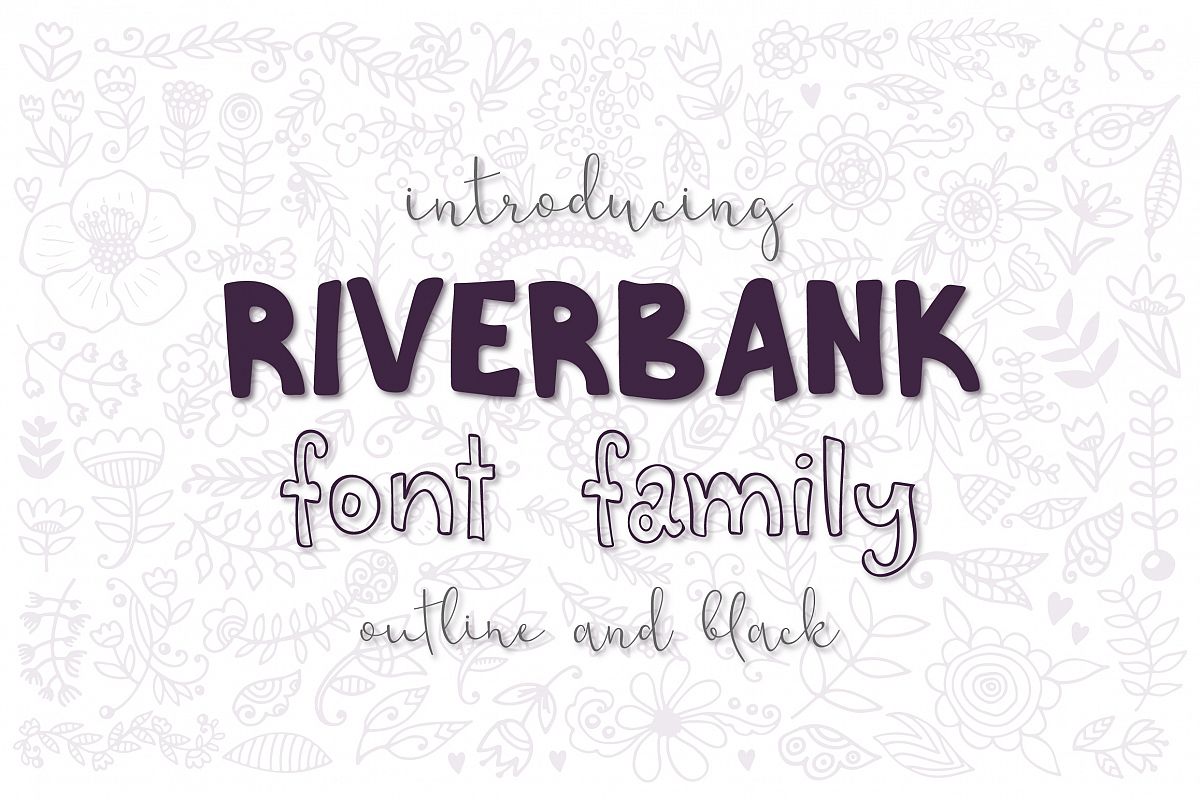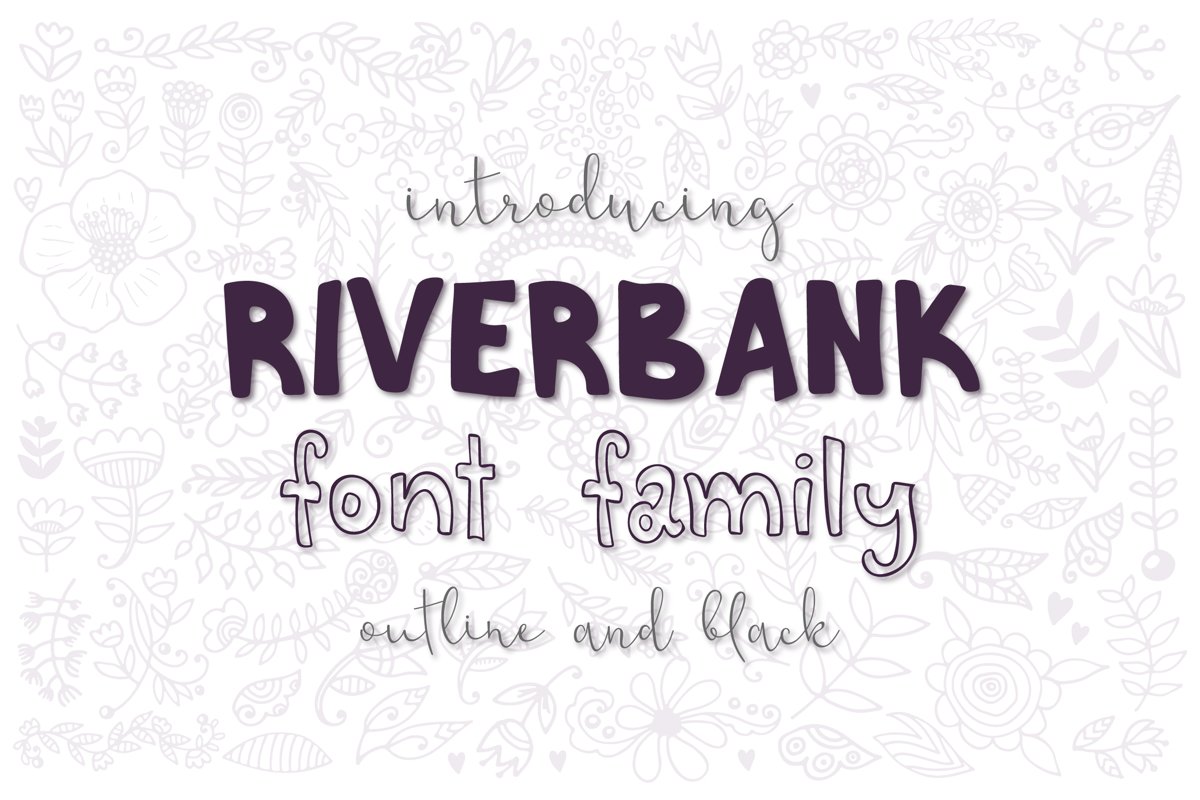
Riverbank - outline and black font family
Riverbank is a fun decorative handwritten font. Font family includes 2 styles - a outline and black, which can easily be combined. Hand-drawn uneven lines create a playful mood. Perfect for home decor, quotes, posters, kids accessories, greeting and invitation cards, DIY projects and much more!